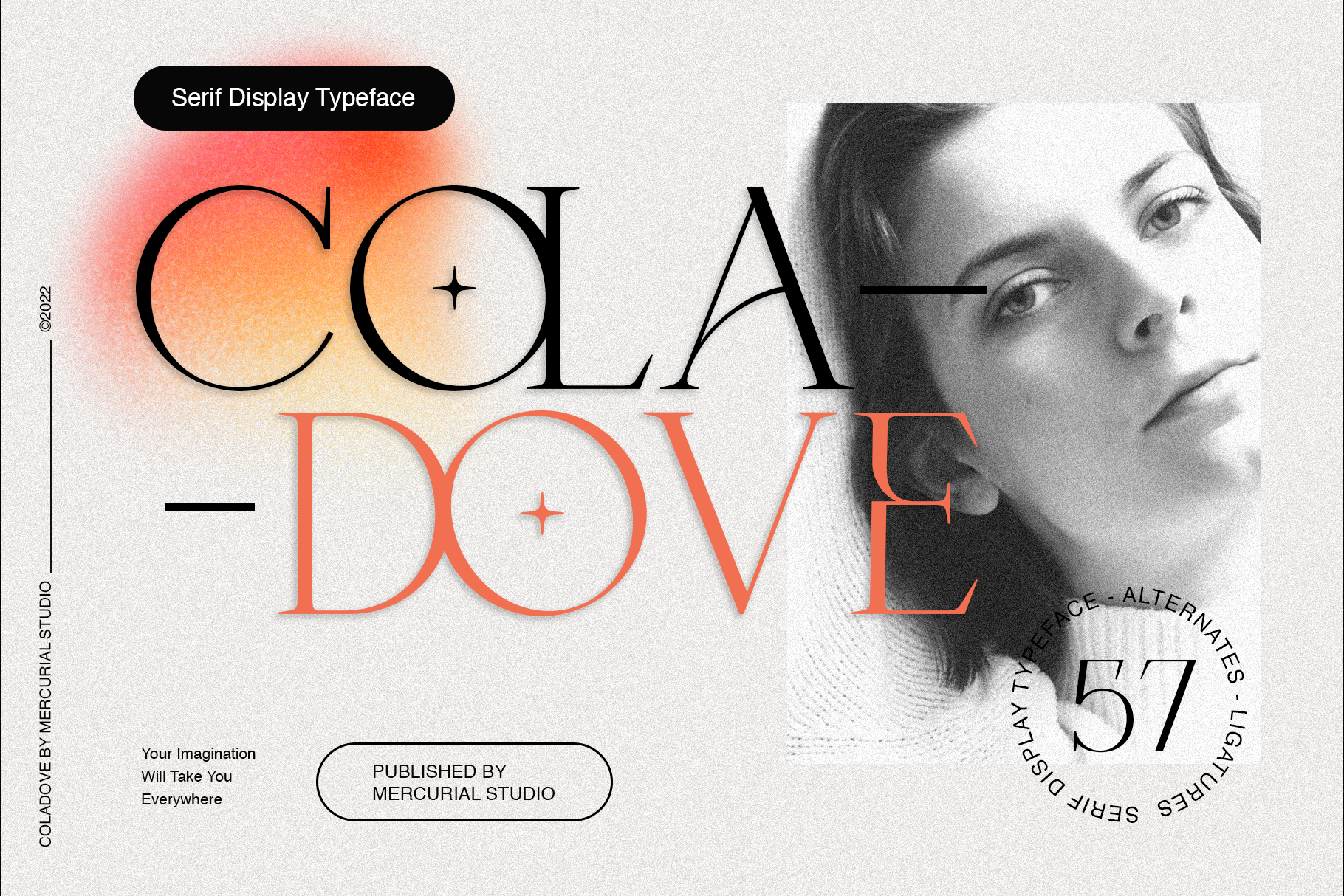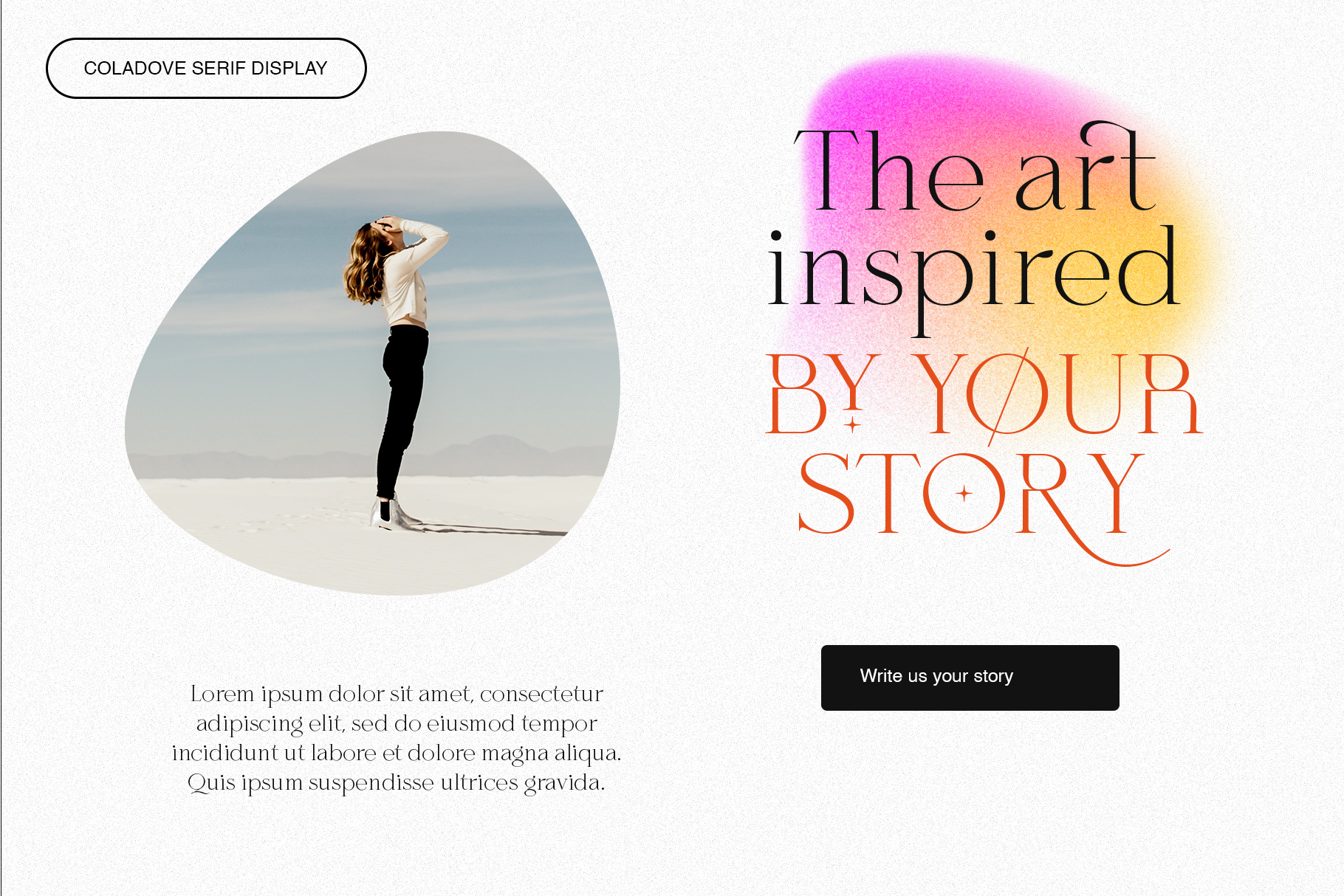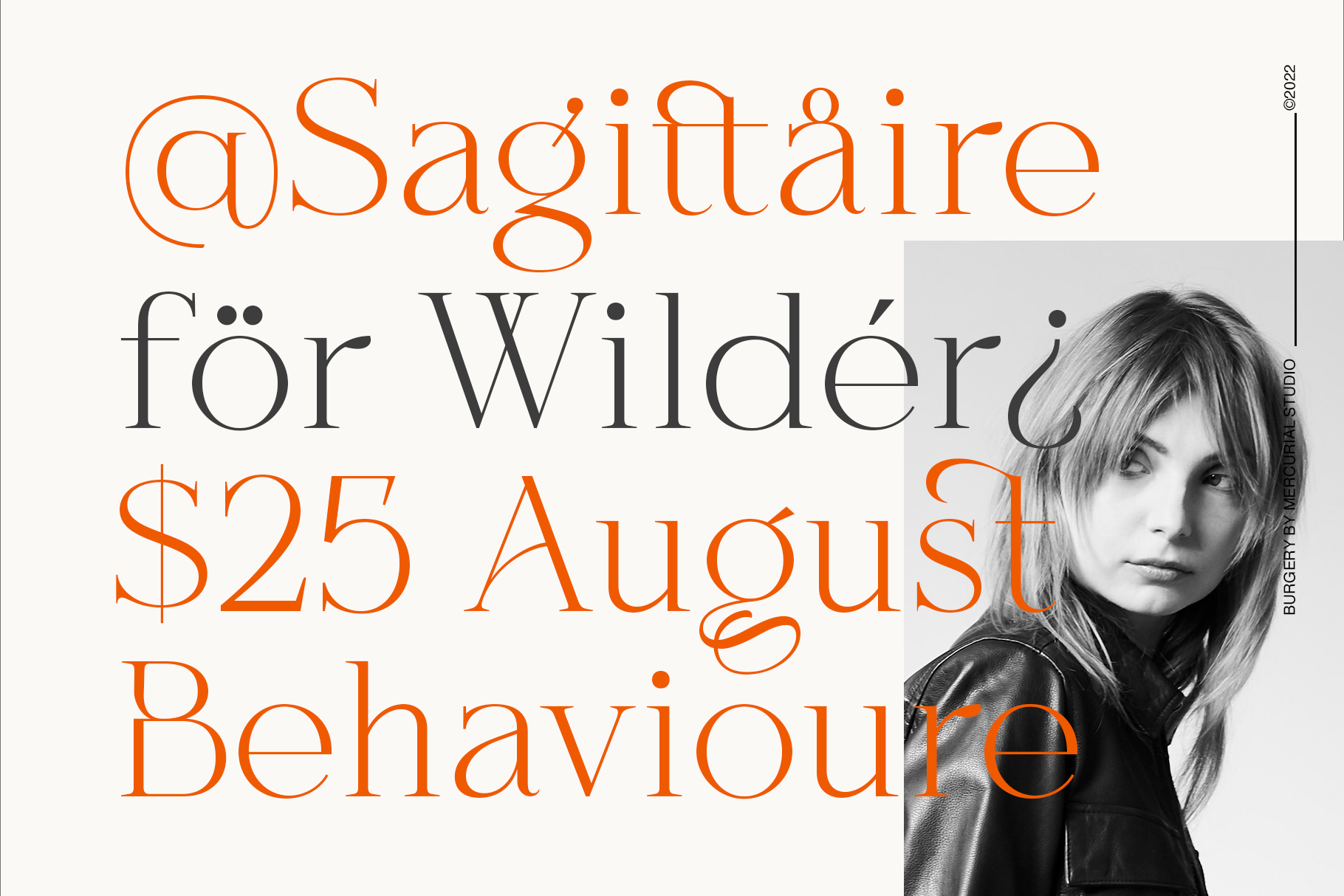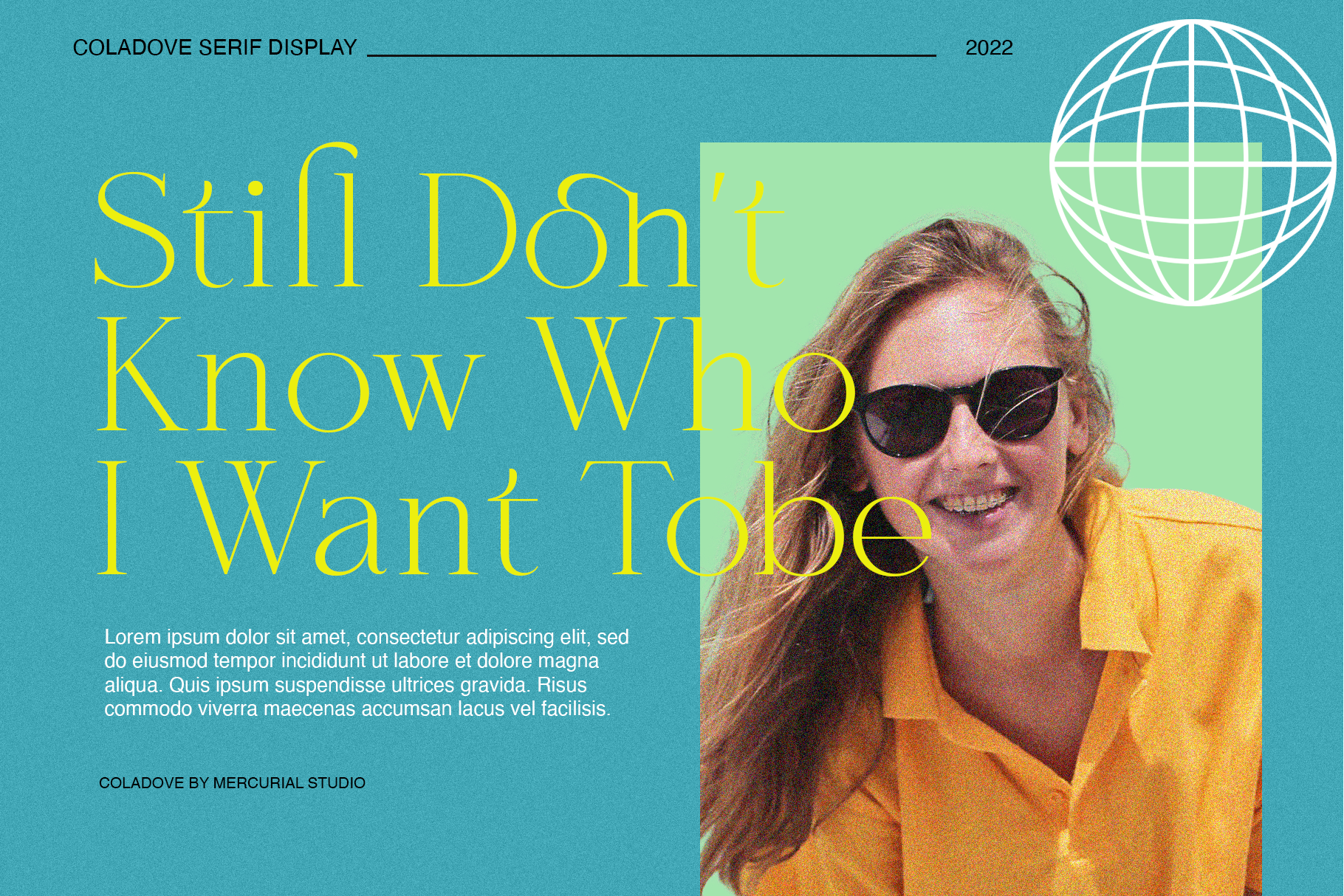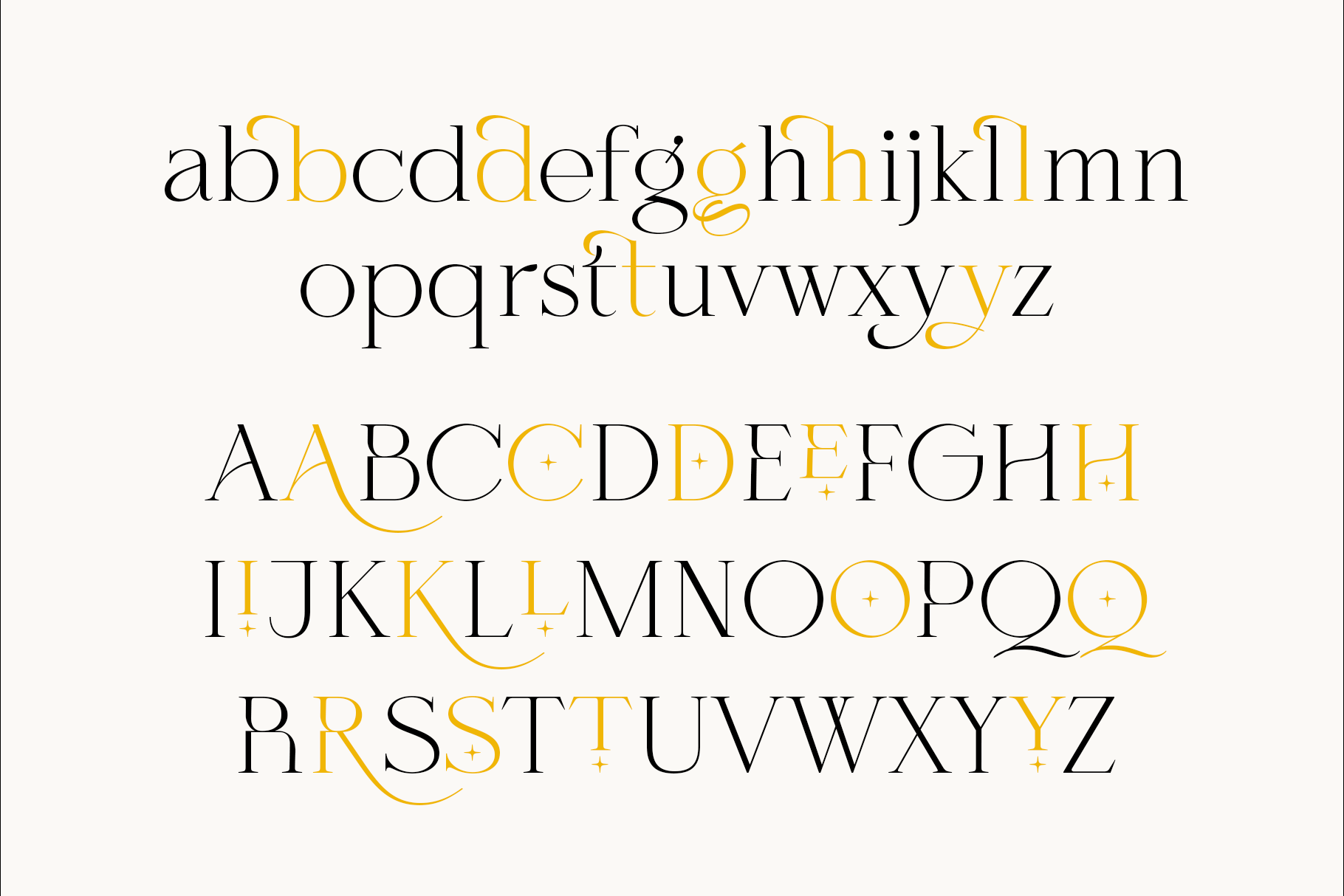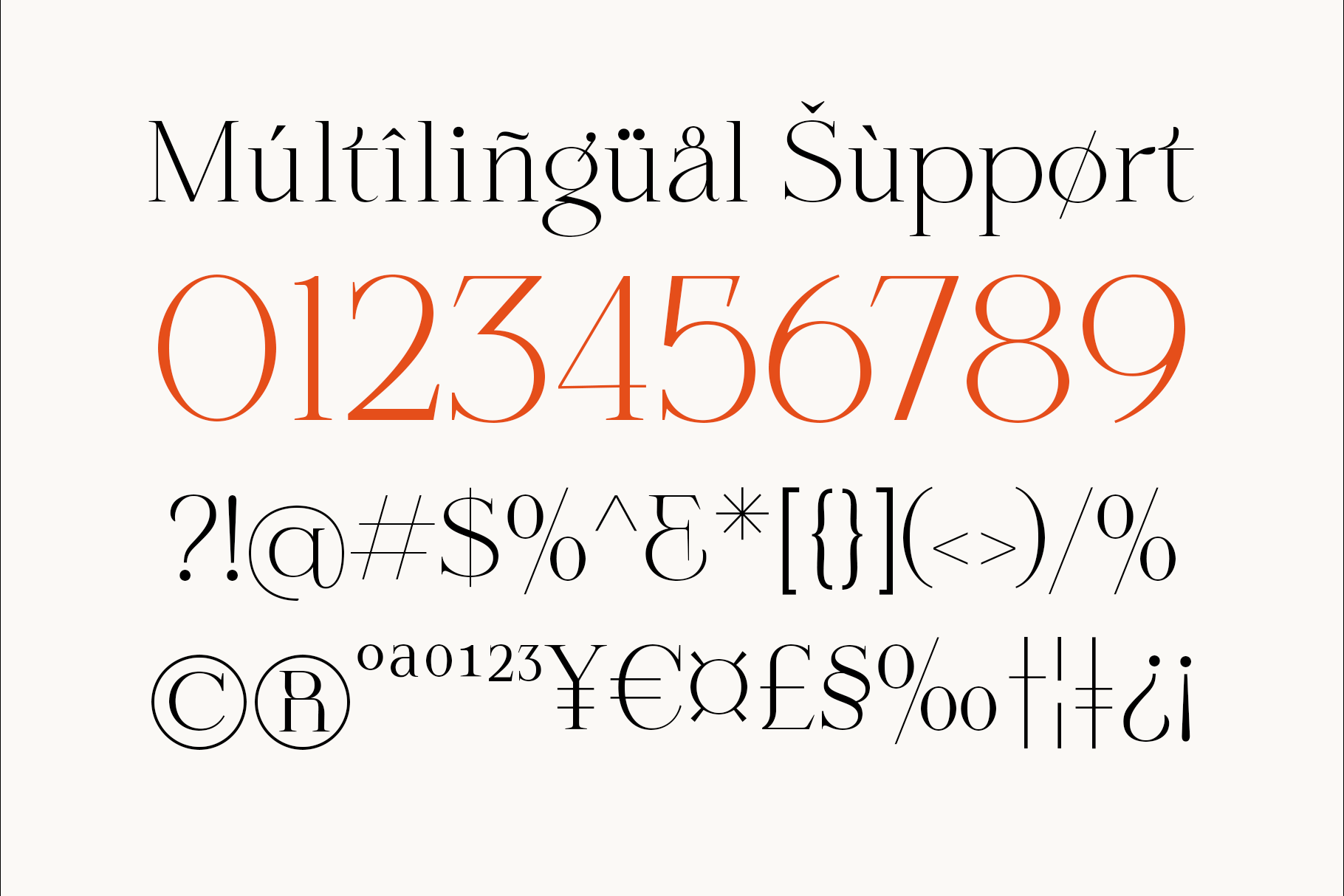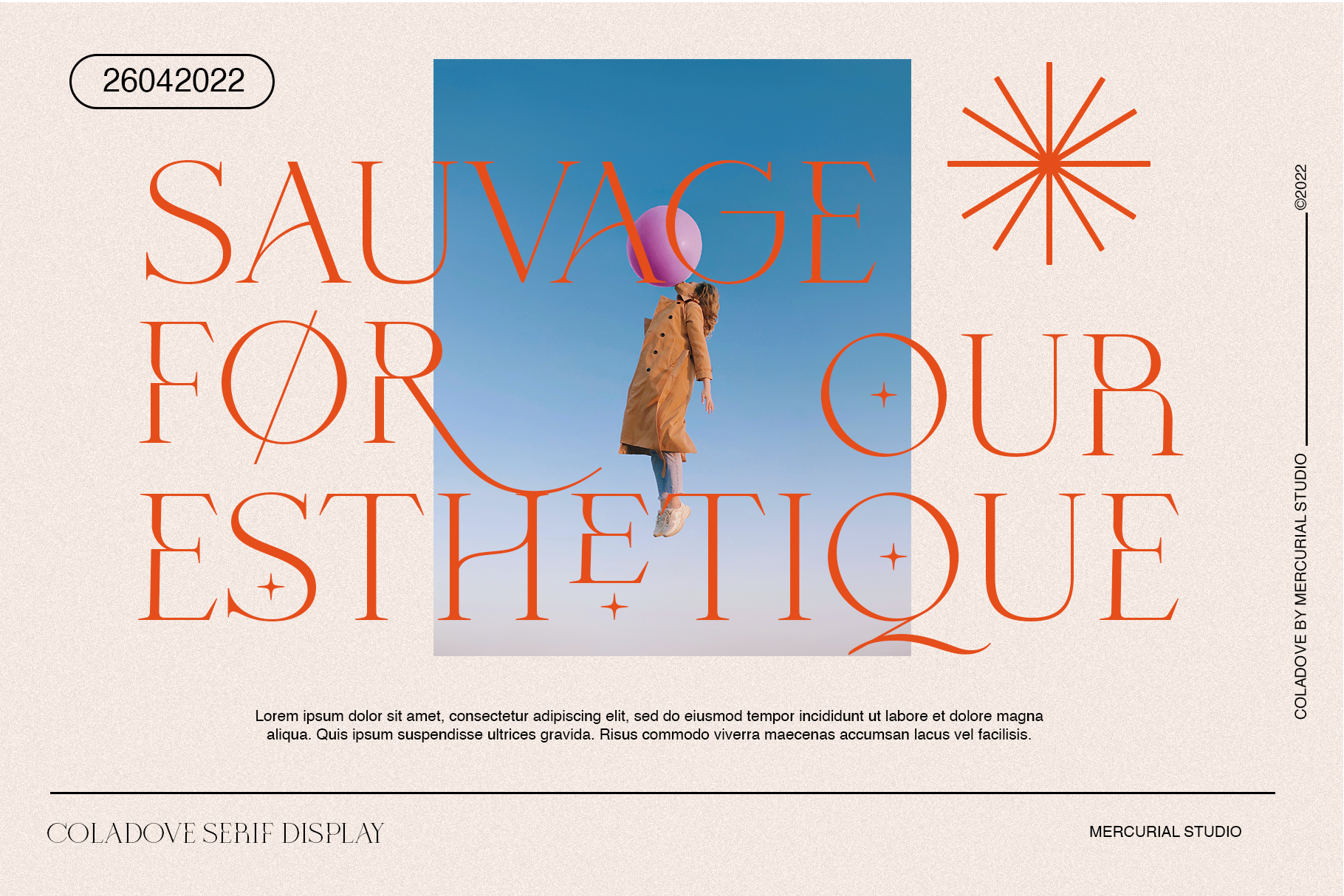
Coladove Font
Coladove is a sophisticated serif display typeface that merges elegance with a modern edge. With its stylish ligatures and versatile alternates, this font brings a luxurious, polished feel to editorial layouts, branding, and creative design work.
Perfect for fashion magazines, upscale logos, and premium packaging, Coladove offers a timeless yet contemporary aesthetic that elevates any project. Whether you're crafting a minimalist design or a bold visual identity, Coladove’s refined charm and graceful details will help your work stand out with class and confidence. Let your imagination take flight with this beautifully crafted typeface.